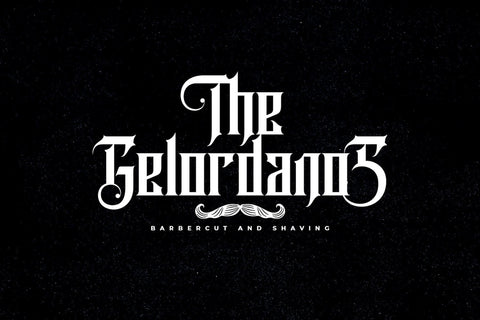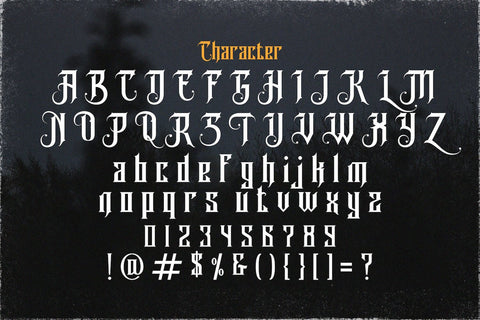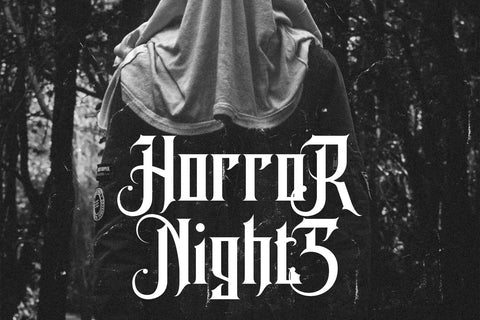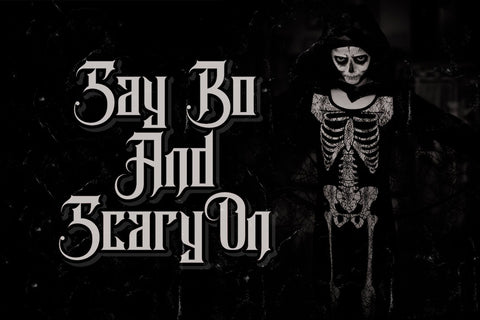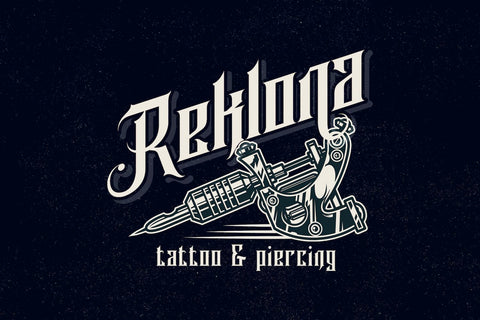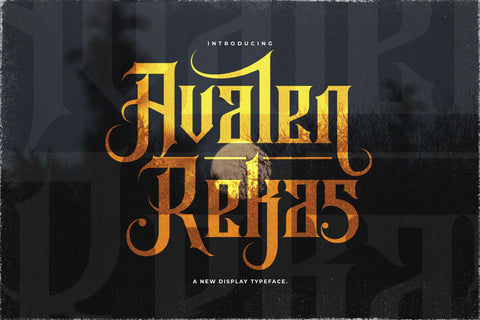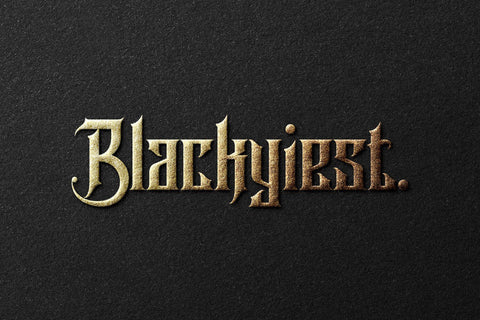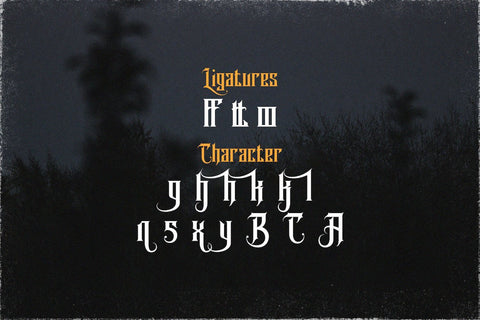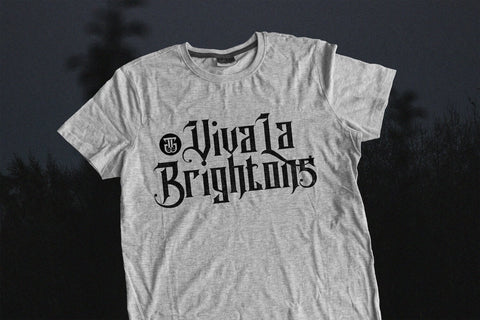
Avalen Rekas - Blackletter Font
Introducing Avalen Rekas - Blackletter Font
Avalen Rekas is an incredibly authentic and daring blackletter font. Add this font to your favorite creative ideas and notice how it makes them stand out!